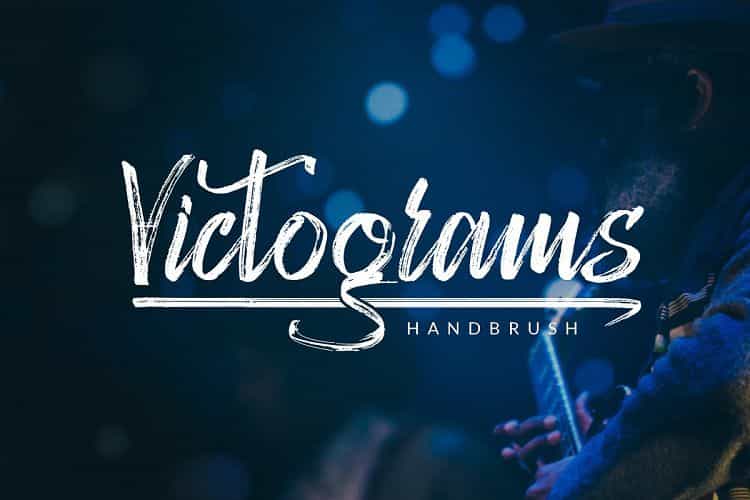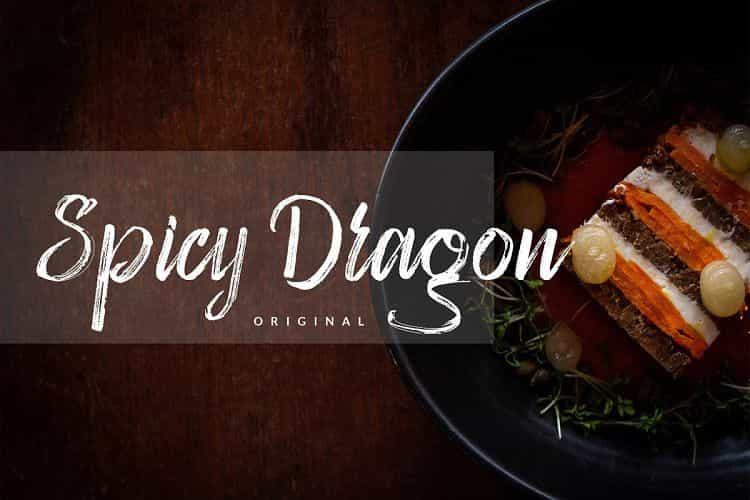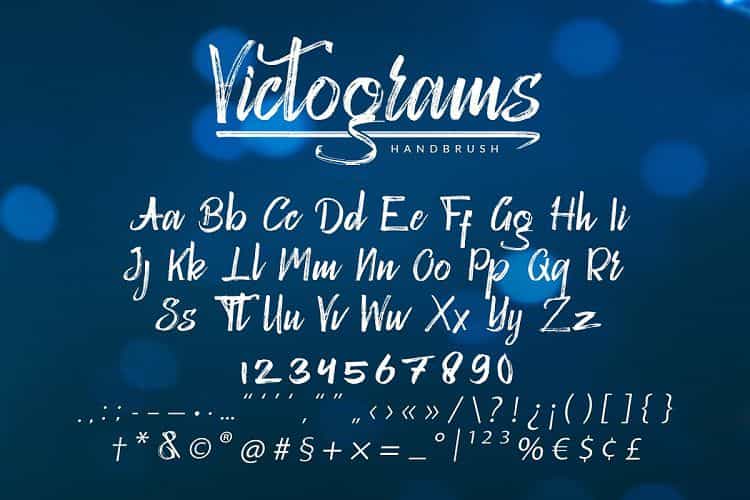
Victograms is a hand brush typeface. It is a hand brush script font with the genuine style. This font is written by a brush pen using very laborious techniques, so the outcome has an attractive and charming look.